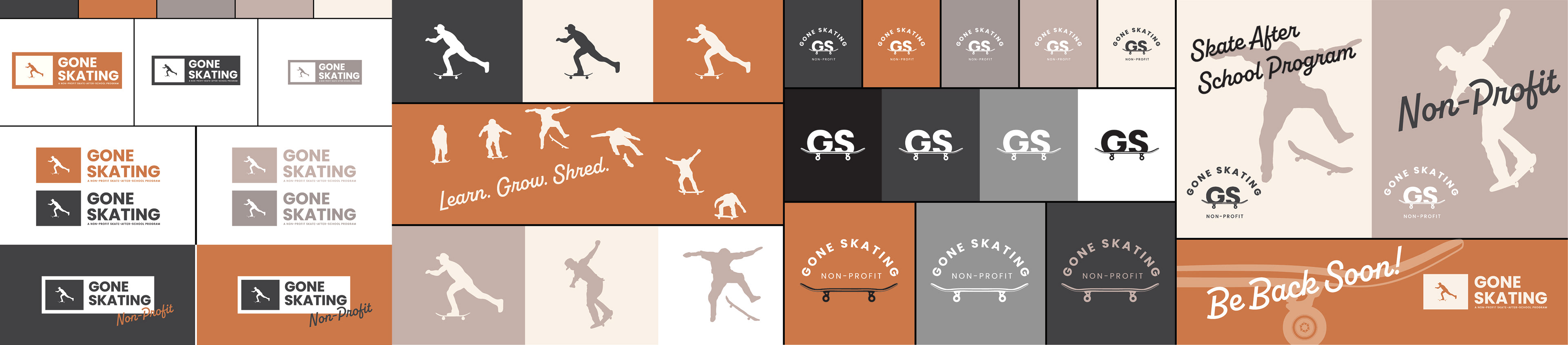
Welcome to Gone Skating - the non-profit organization that's revolutionizing after-school programs. We're not just providing trips from school to skateparks and back home, we're giving students a safe and exciting opportunity to explore the world of skateboarding. With professional instructors, students get to develop their skills while also discovering the value of perseverance and teamwork. But that's not all - we also donate skateboards to those who can't afford them, giving every young person the chance to experience the thrill of skating.
At dantype design co., we were thrilled to work with Gone Skating to create a brand identity that embodies their supportive and caring nature. We wanted to make sure that the branding was relatable to young adults while also being strong, cohesive, and fitting into a school program. Our design features a square edge and soft color palette to evoke trust and professionalism, while the angled script font adds a touch of fun and support. Join us in empowering the next generation of skaters with Gone Skating!